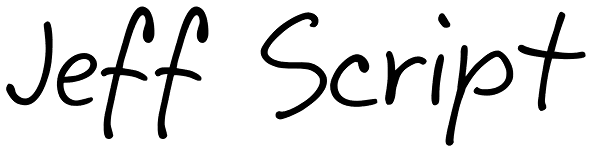
Jeff Script
Jeff Script is based on original handwriting of renowned Russian type designer Vladimir Yefimov. Vladimir designed a plenty of Cyrillic fonts that became the classical ones between contemporary Cyrillic type designs. Being extreme busy with type...